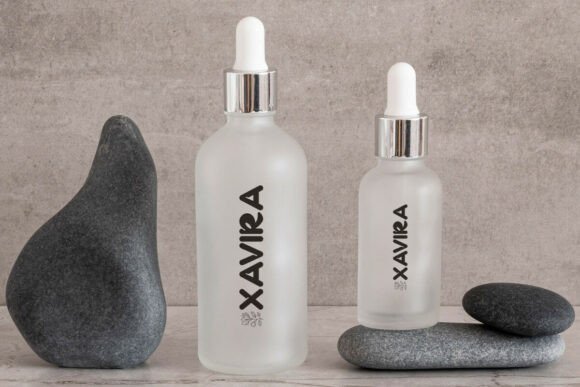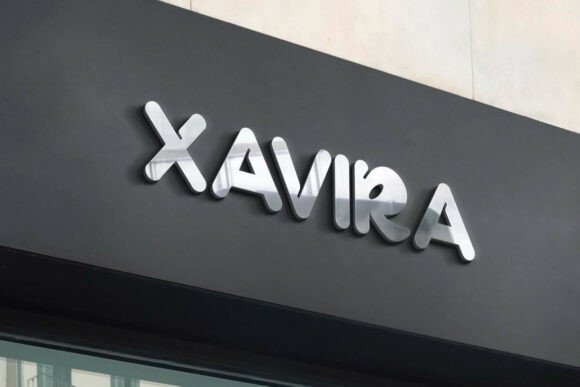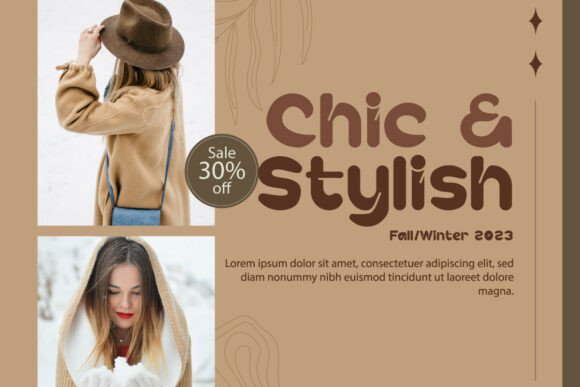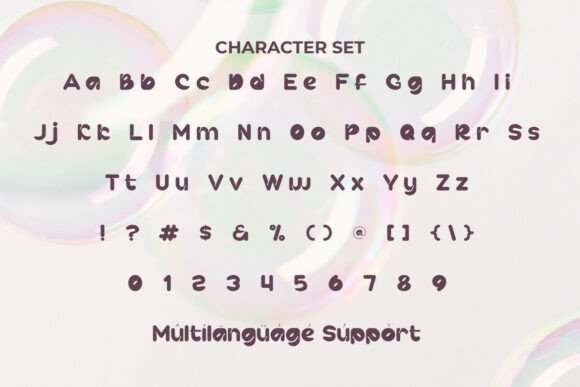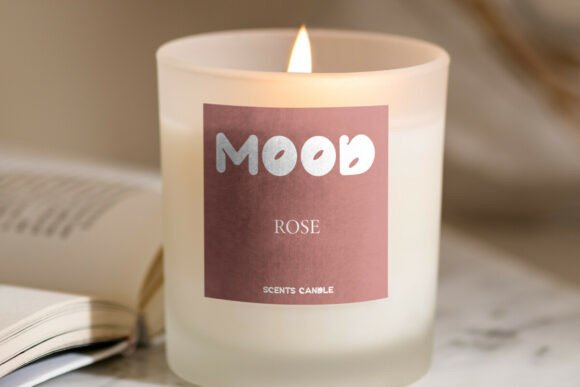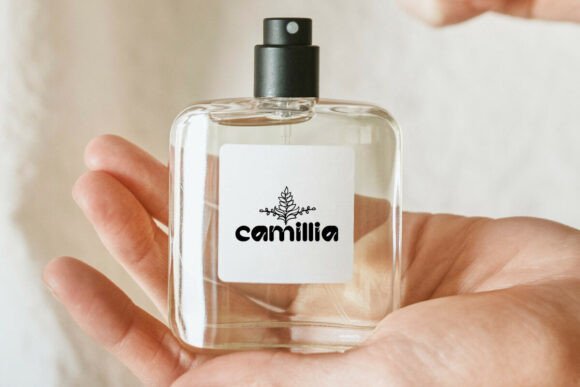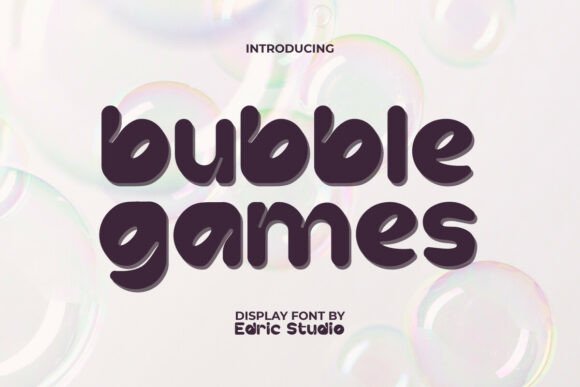
Bubble Games Font: Adding a Touch of Whimsy to Your Designs
In the world of typography, fonts play a crucial role in conveying the tone and personality of a brand or design. If you’re looking for a font that exudes fun, playfulness, and modernity, look no further than Bubble Games Font. This cheerful display font features dynamic bubbles in an attractive, contemporary style that’s sure to capture attention and leave a lasting impression.
A Great Choice for Various Design Projects
Bubble Games Font is an excellent choice for a wide range of design projects, including apps, blogs, brand signs, brochures, business cards, covers, flyers, greeting cards, headers, labels, logos, posters, product packaging, quotes, screen prints, stickers, titles, watermarks, and website headers. Its versatility and unique style make it an ideal font for designers and crafters looking to add a fresh and vibrant touch to their work.
Unique Style and Features
What sets Bubble Games Font apart is its creative bubble shape with strokes in every corner, making it anything but boring. Each letter is carefully crafted to bring a unique style to your designs, ensuring that your work stands out from the crowd. The font comes equipped with a complete set of uppercase and lowercase letters, numbers, punctuation, and symbols, providing everything you need to create stunning designs.
Adding a Lively and Personal Touch
Bubble Games Font has the power to add a lively and personal touch to your ideas, radiating bright energy that’s perfect for various industries and applications. Whether you’re working on aromatherapy supplies, clothing brands, content creation, cosmetic industry, fashion, fragrance brands, game apps, handicrafts, school education, spa, trinkets, or more, this font is sure to bring a smile to your audience’s faces.
Multilingual Support
In today’s globalized world, it’s essential to have a font that supports multilingual characters. Bubble Games Font meets this requirement, allowing you to create designs that cater to diverse audiences and languages. This feature makes it an excellent choice for designers and businesses with a global reach.
Why Choose Bubble Games Font?
- Unique and eye-catching style: Bubble Games Font boasts a distinctive bubble shape that’s sure to grab attention.
- Versatility: This font is suitable for a wide range of design projects, from digital to print.
- Multilingual support: Reach a broader audience with a font that supports multiple languages.
- Easy to use: With a complete set of letters, numbers, and symbols, you can easily incorporate Bubble Games Font into your designs.
Tips for Using Bubble Games Font
- Experiment with colors: The font’s playful style lends itself well to bright, bold colors that can add an extra layer of fun to your designs.
- Mix and match: Combine Bubble Games Font with other fonts to create a unique and visually appealing typography style.
- Play with sizes: Use the font in various sizes to create visual hierarchy and add emphasis to specific elements in your design.
Bubble Games Font is a fantastic addition to any designer’s toolkit, offering a unique blend of fun, modernity, and versatility. With its creative bubble shape, complete set of letters and symbols, and multilingual support, this font is perfect for a wide range of design projects. Whether you’re a seasoned designer or a crafty DIY enthusiast, Bubble Games Font is sure to bring a touch of whimsy and personality to your work.